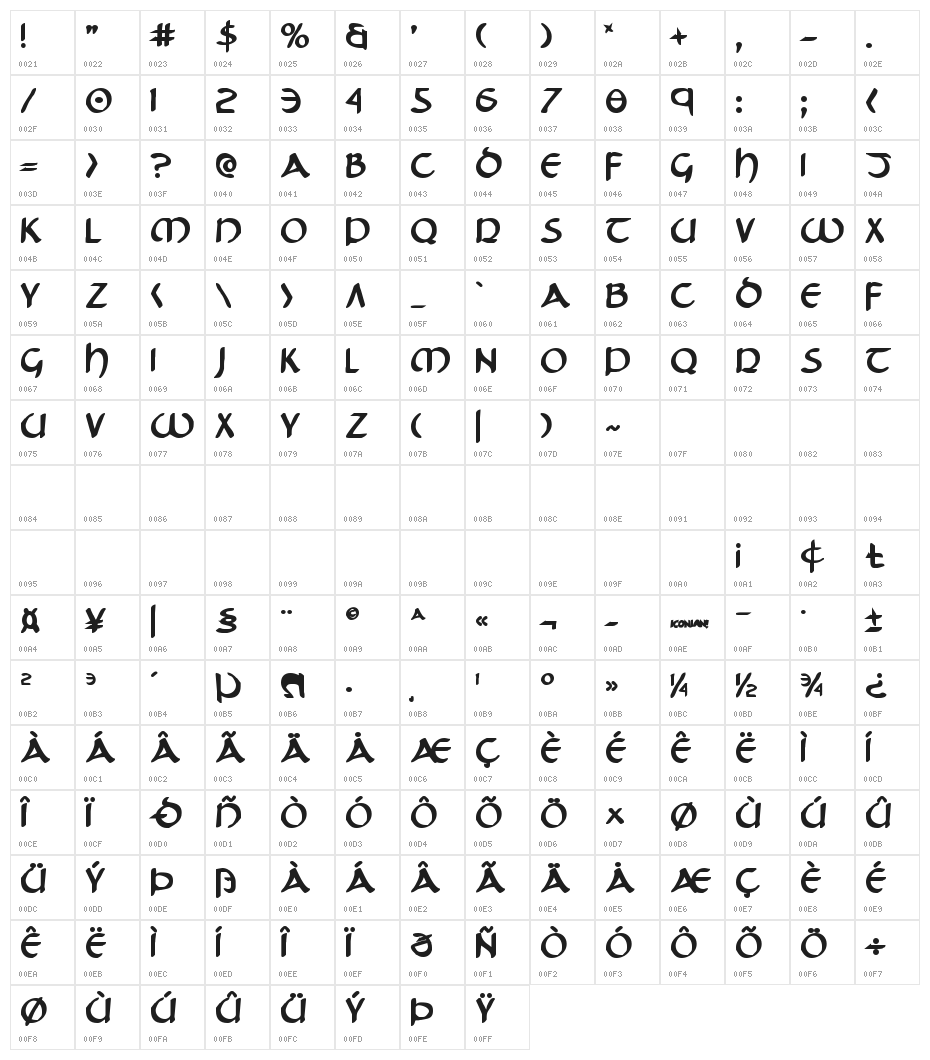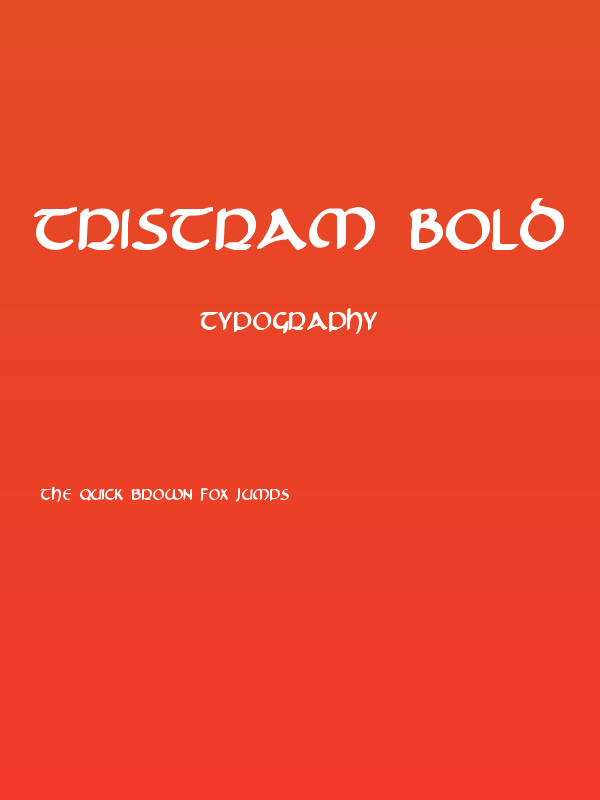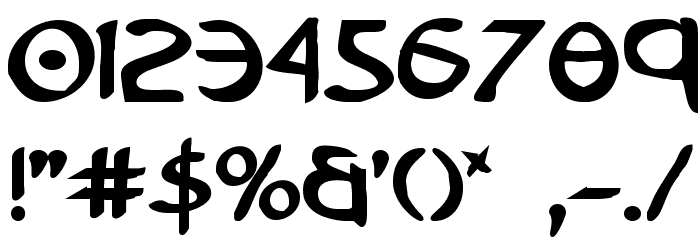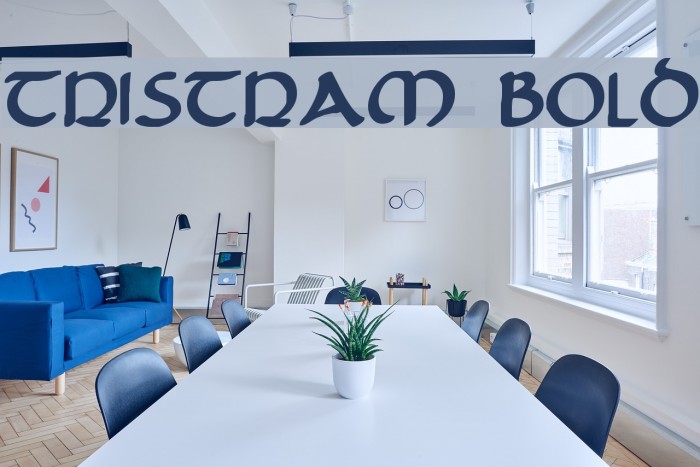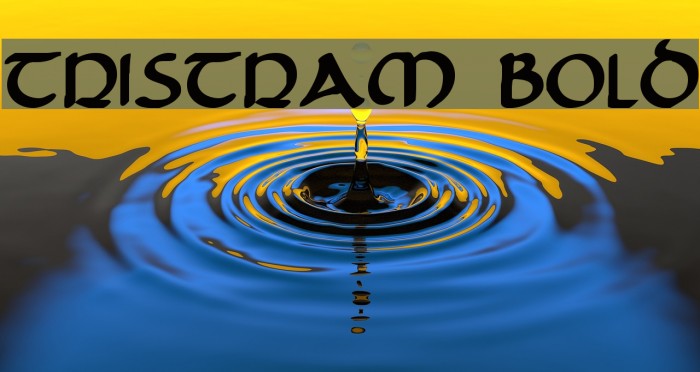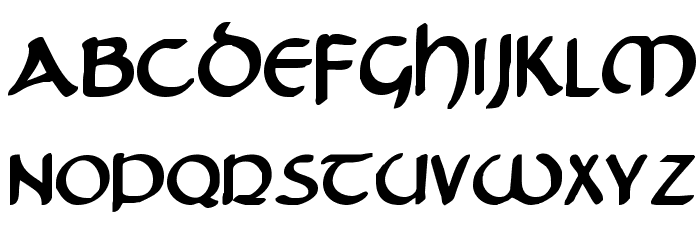
Tristram Bold Font
Tristram Bold Description
This font features a bold and dynamic style with a unique blend of curves and sharp edges, giving it a distinct and eye-catching appearance. The characters are designed with a medieval flair, reminiscent of ancient scripts, yet they maintain a modern touch. The uppercase and lowercase letters are consistent in their boldness, with a slight variation in the curvature that adds to the font's charm. The numbers and special characters follow the same stylistic approach, ensuring uniformity across all elements. This font is perfect for projects that require a touch of historical elegance combined with contemporary design.